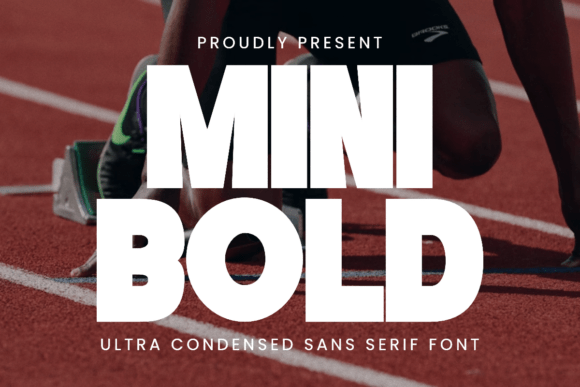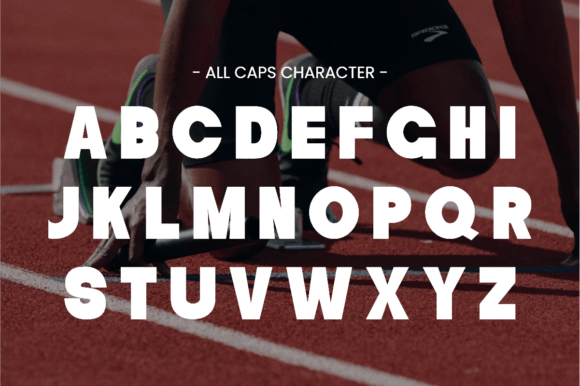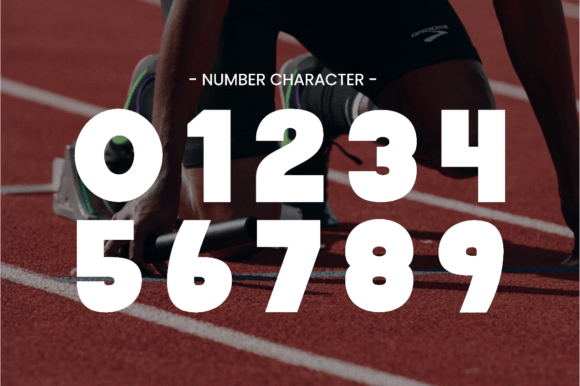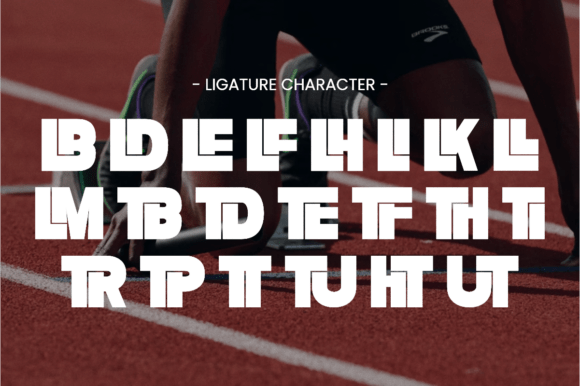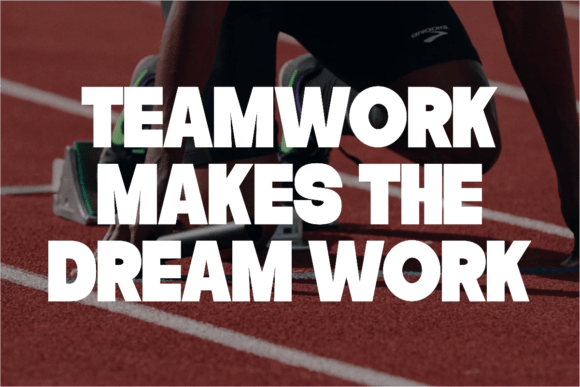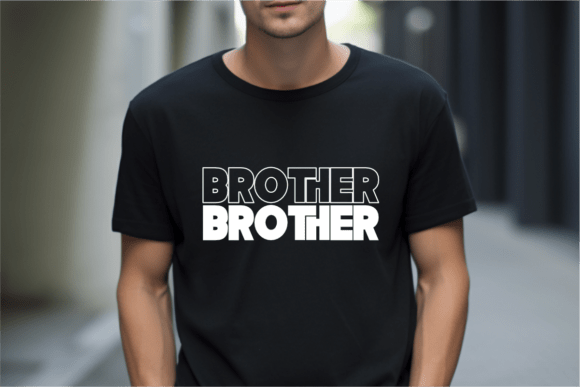
Mini Bold Font
Mini Bold is an ultra-condensed sans-serif font with a powerful and energetic style. With its tall, bold letterforms and modern structure, this font is perfect for projects that need maximum impact such as posters, sports designs, logos, and bold branding. Whether for apparel design, editorial layouts, or advertising, Mini Bold delivers strength and clarity in every use. A must-have font for designers who love high-impact typography.